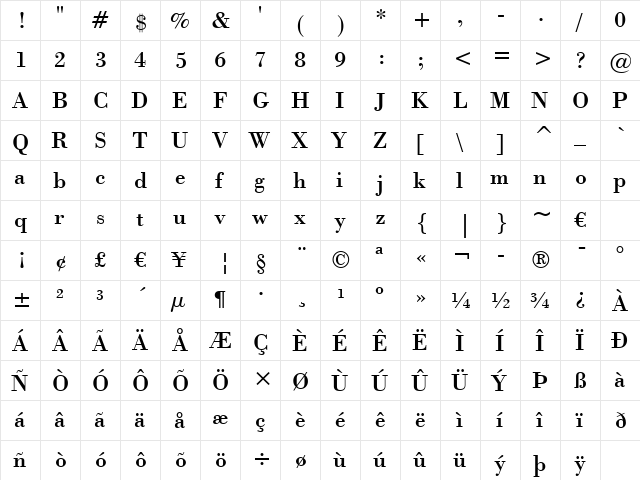
Bodoni BT Roman
Design Context for Bodoni BT Typeface
Bodoni BT offers clean, dependable letterforms without strong stylistic allegiance, making it a practical choice for designers who need flexibility.
Pro Tip: Use Bodoni BT in both headline and body roles to test its range before committing to a single application.